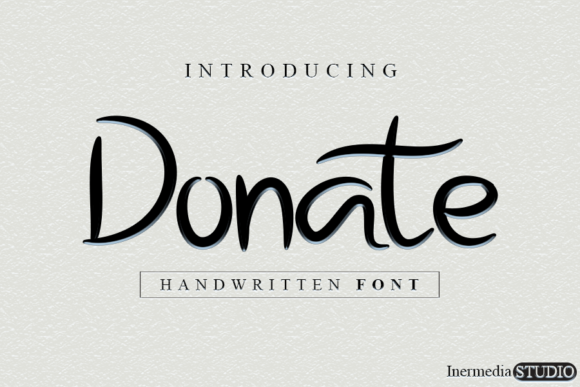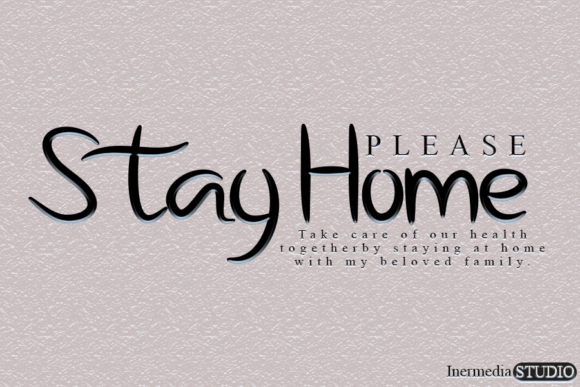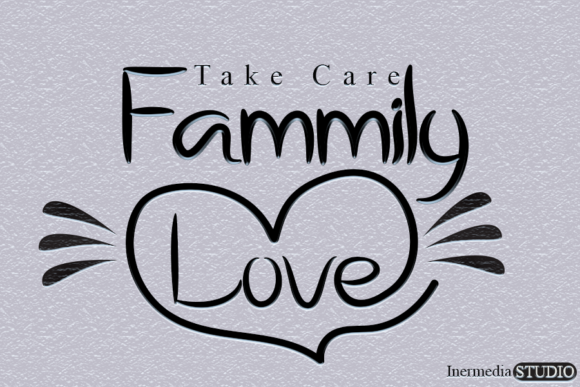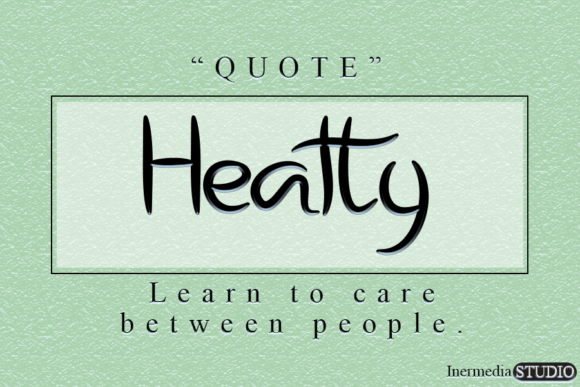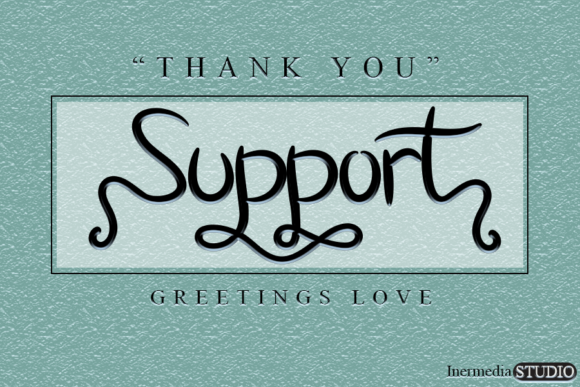
Donate Font
About Donate Font
Donate is a cute and casual handwritten font with an incredibly friendly feel. Whether you’re looking for fonts for Instagram or calligraphy scripts for DIY projects, Donate will turn any creative idea into a true piece of art!